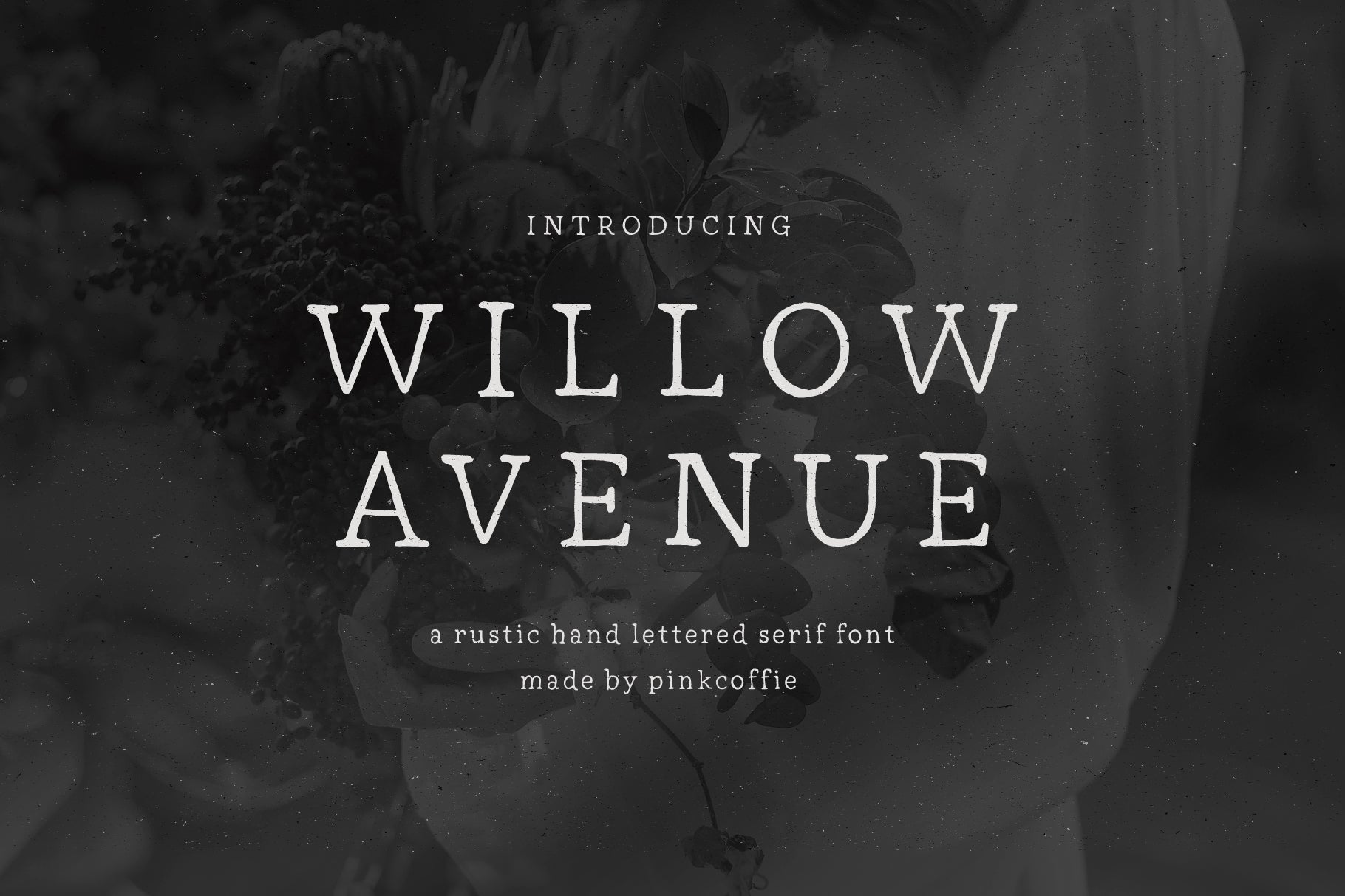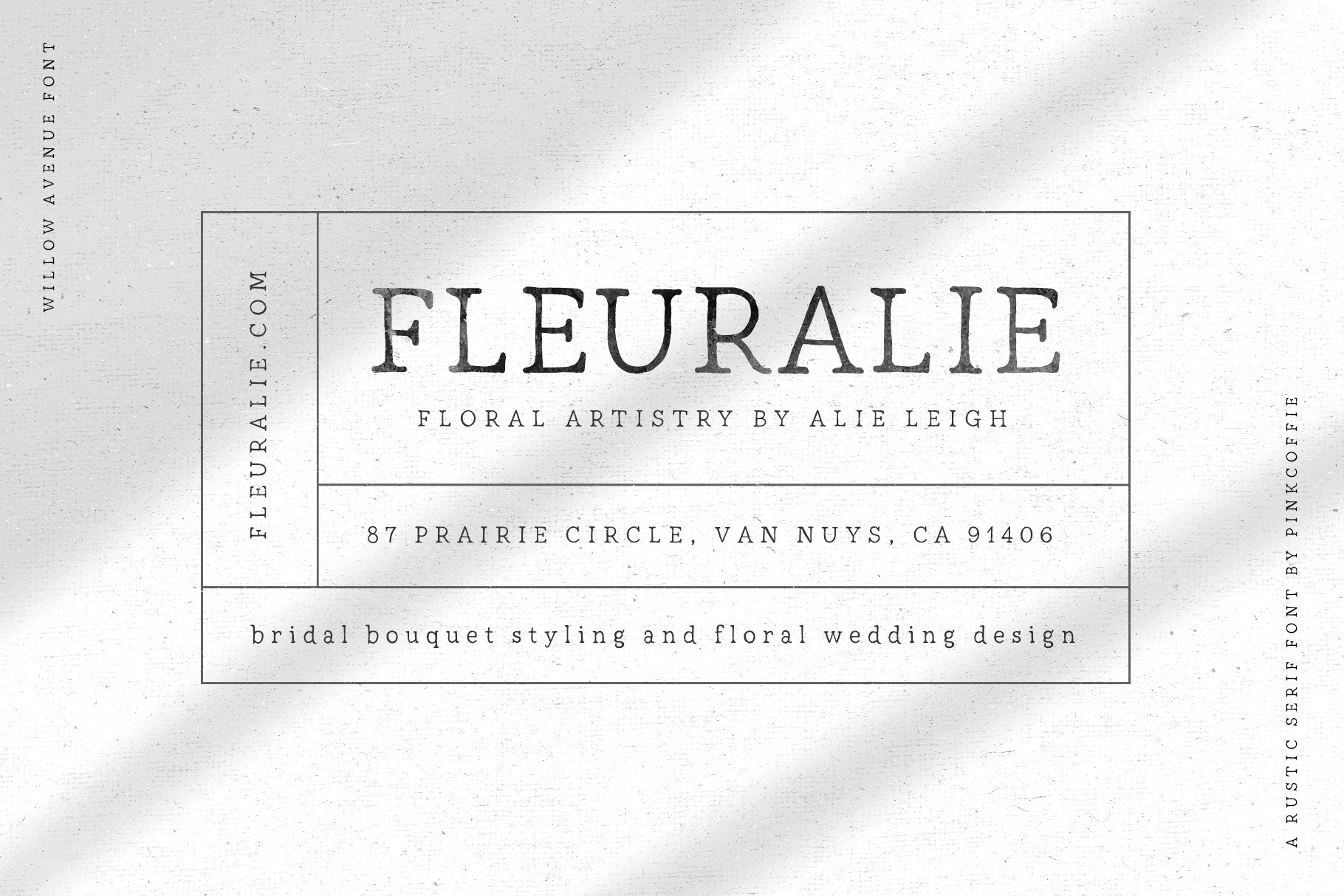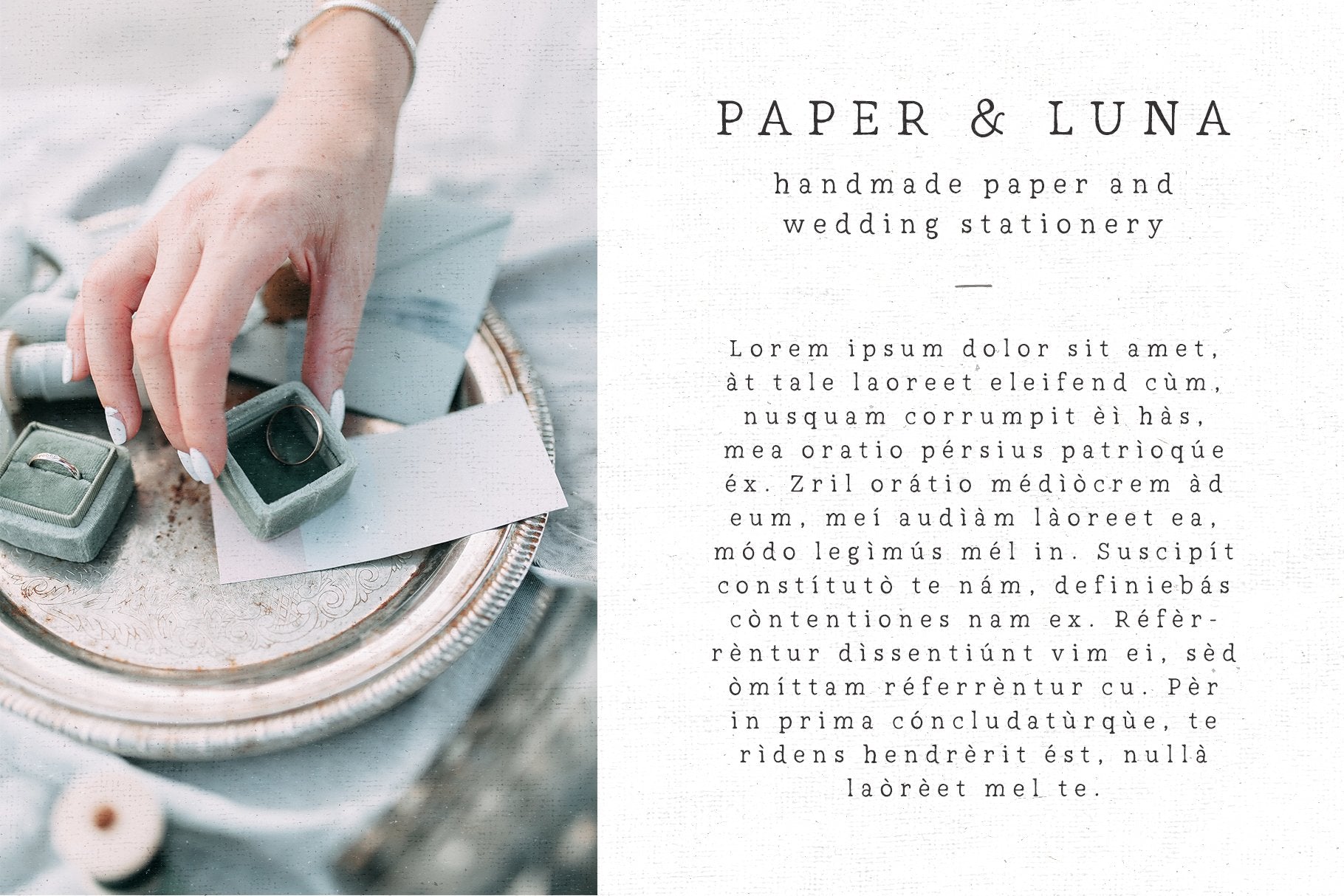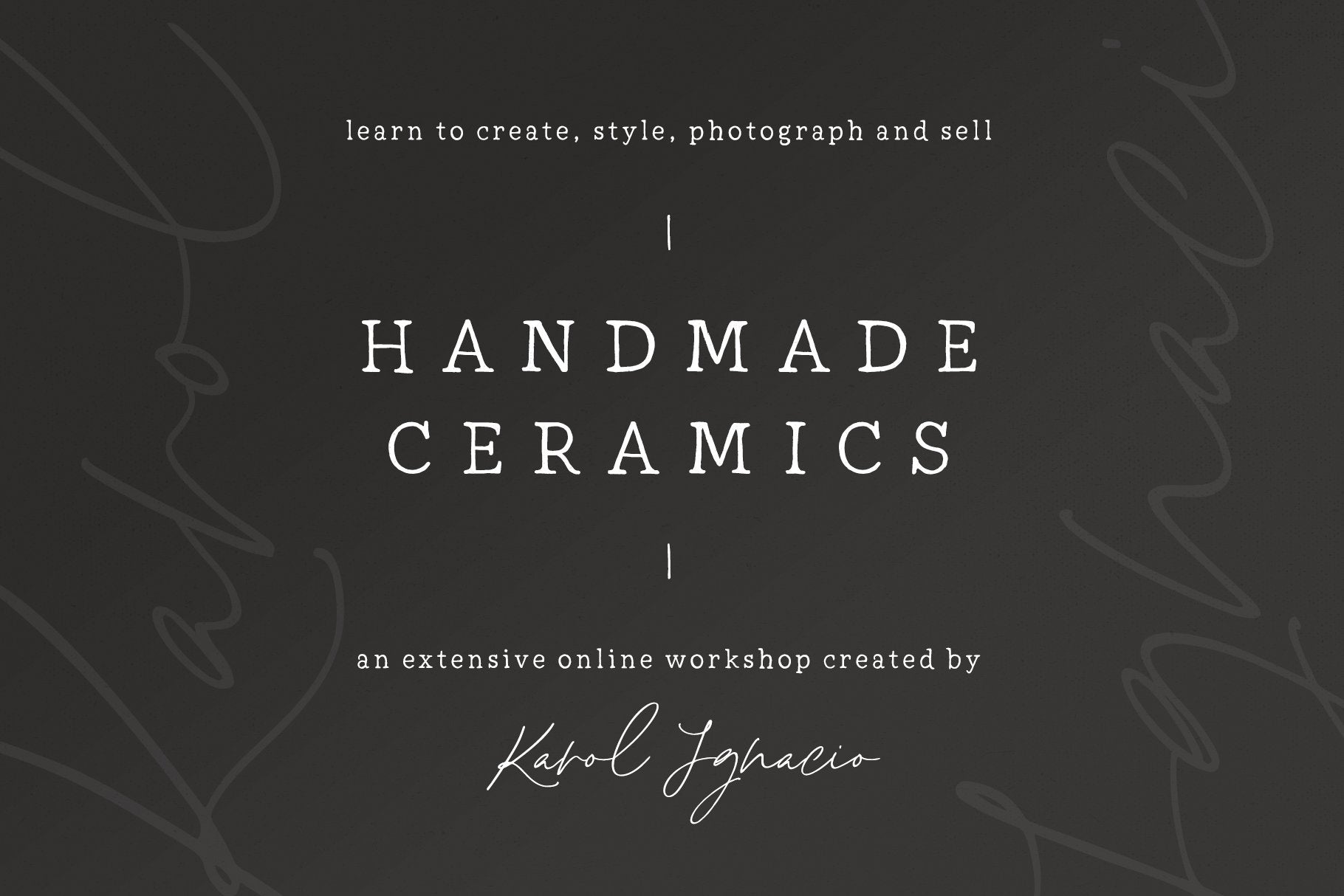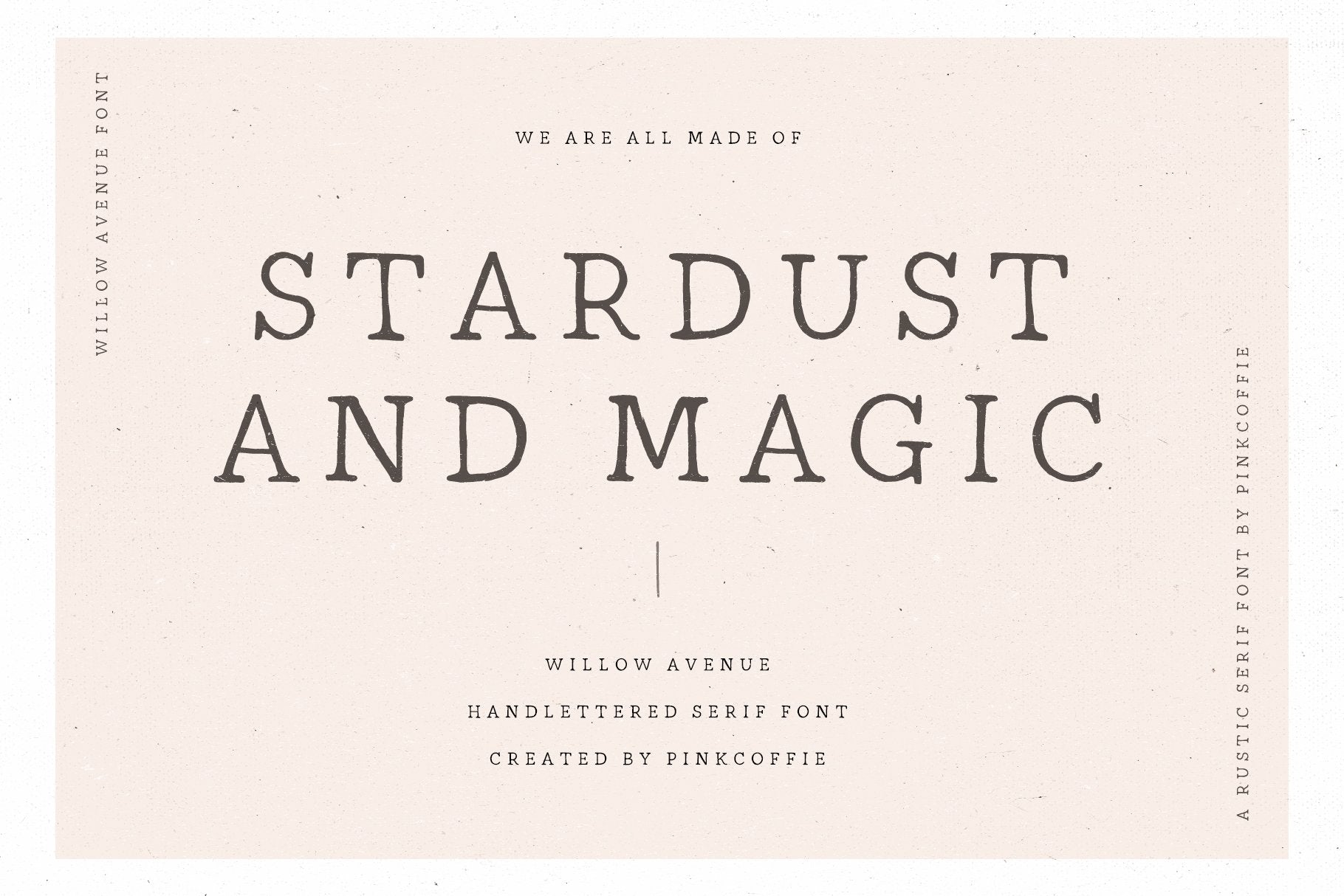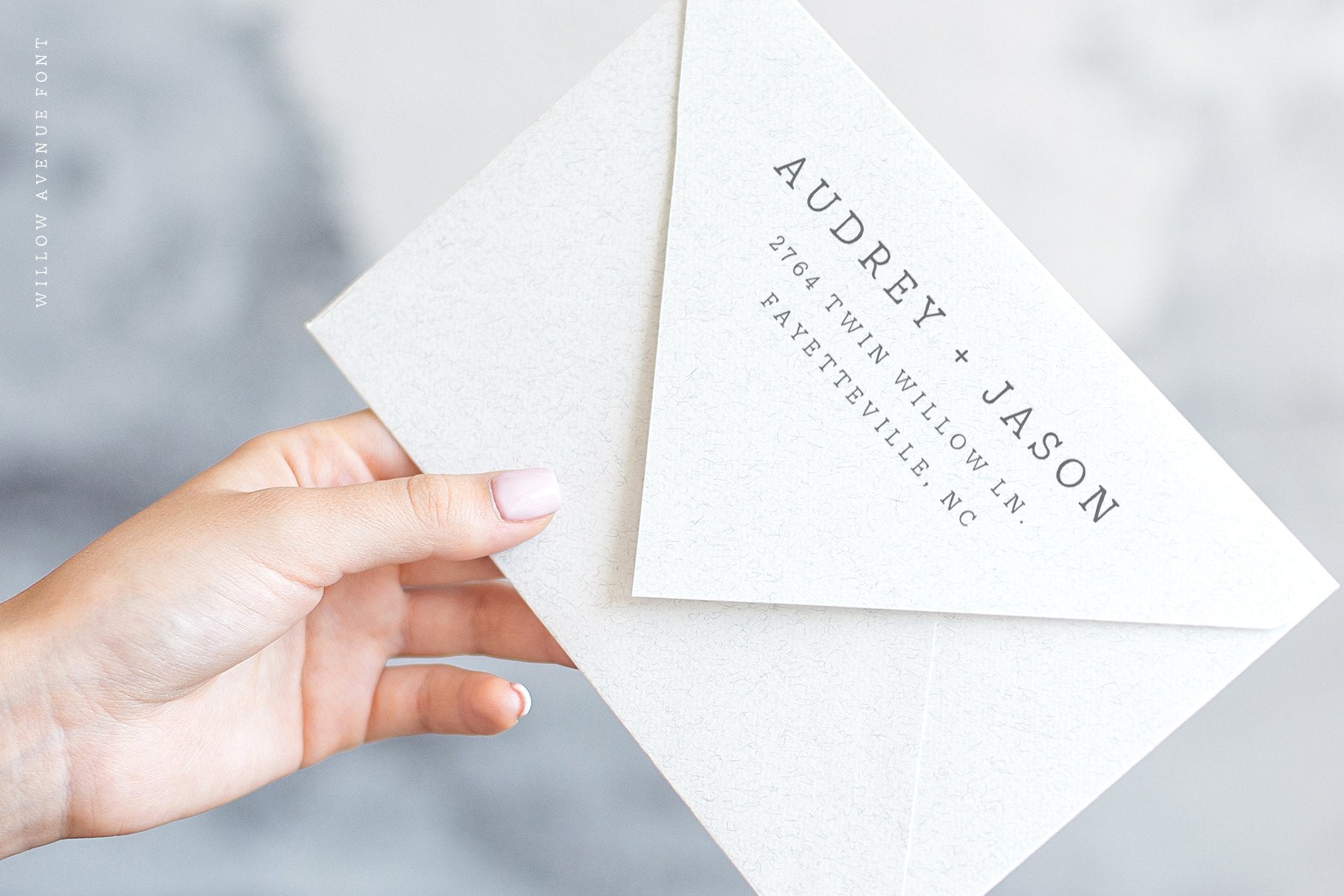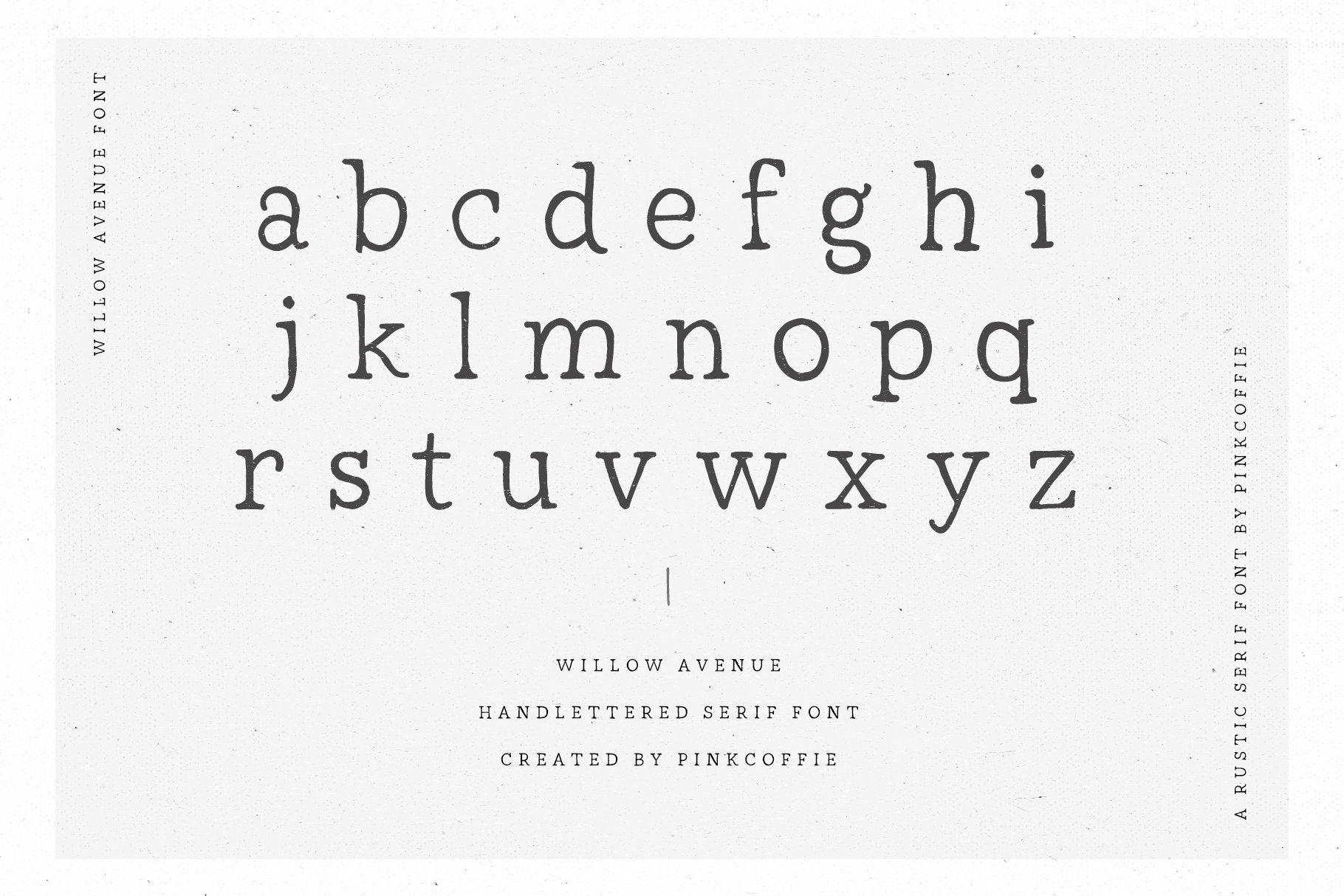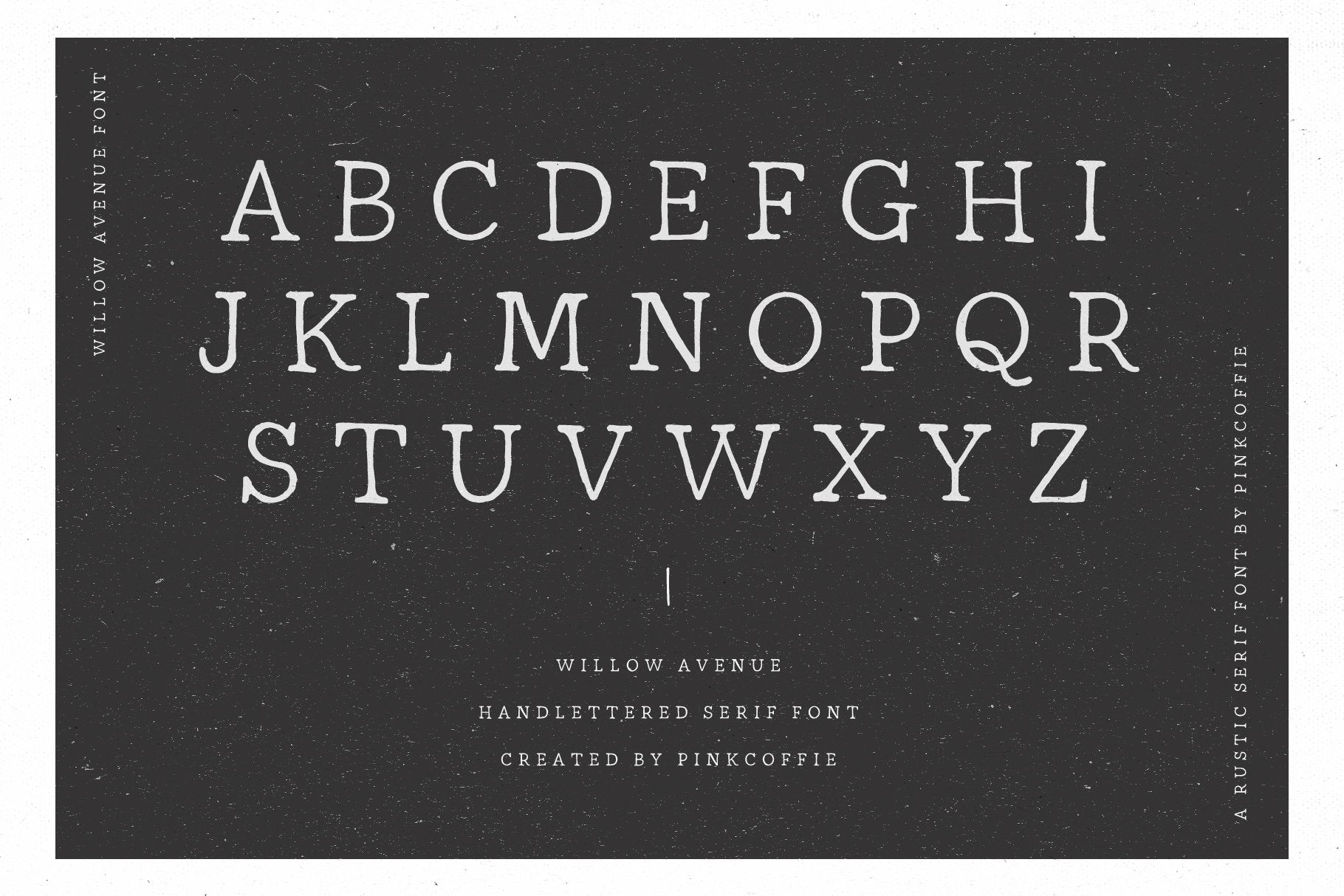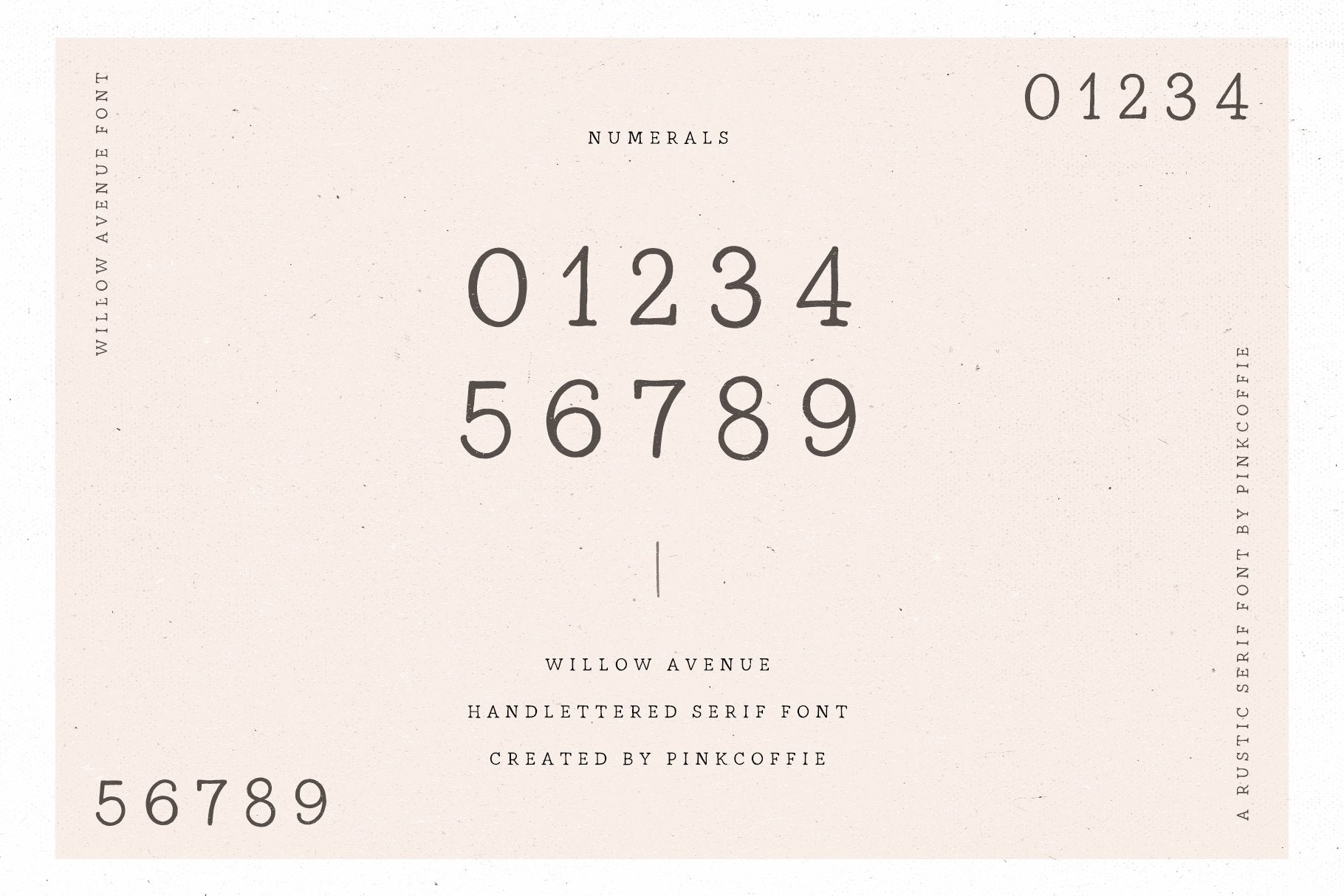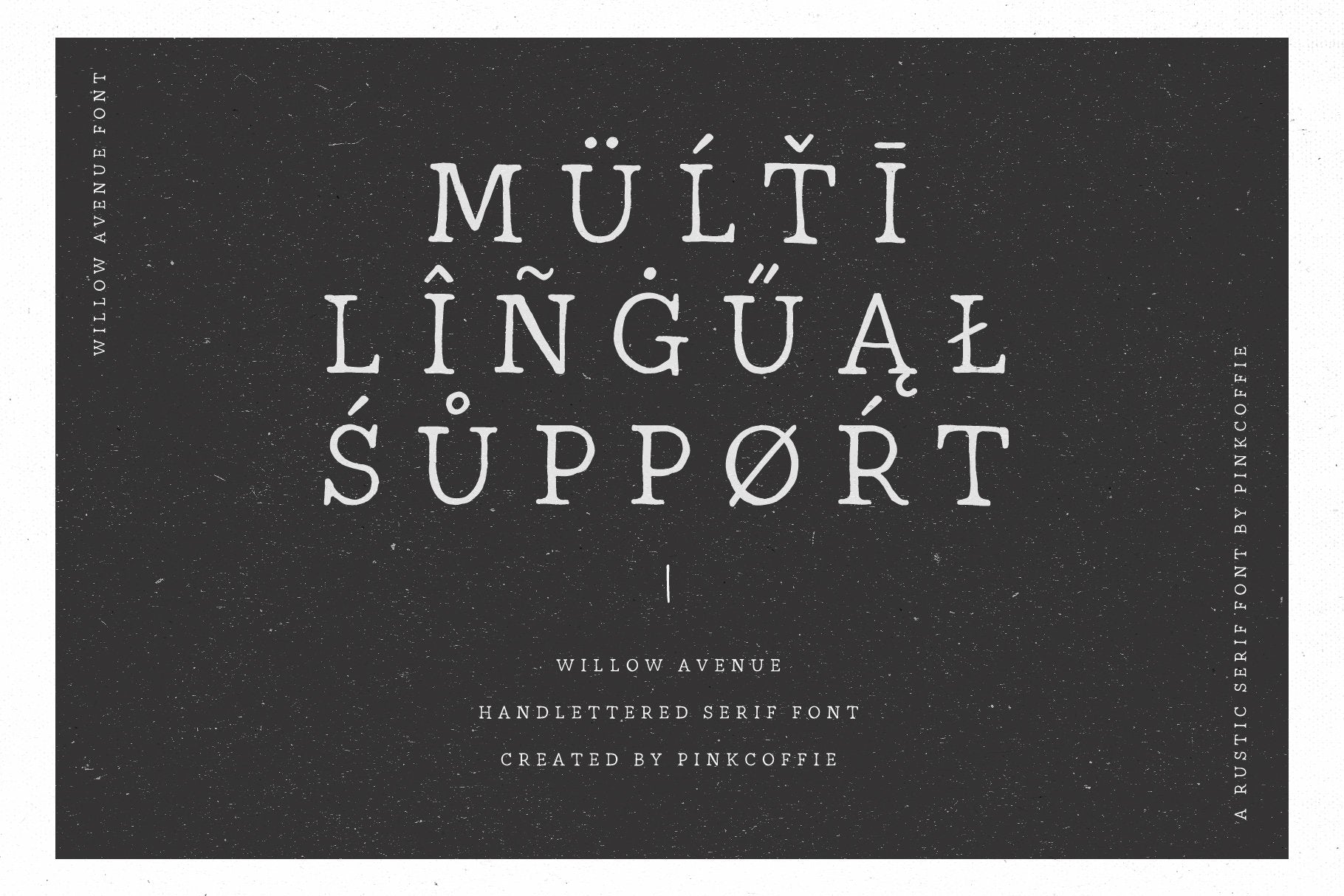
Willow Avenue
Say hello to Willow Avenue! A lovely hand-lettered rustic serif font inspired by beautiful handmade ceramics and rustic stationery.
Willow Avenue includes uppercase, lowercase, numerals, punctuation, and multilingual support.
Multilingual Support:
The font includes multilingual support and the following multi-lingual characters:
ÀÁÂÃÄÅĂĄÆĆČÇĎĐÈÉÊĚËĘÌÍÎÏĹĽŁŃŇÑÒÓÔÕÖŐØŔŘŚŠŞŤÙÚÛÜŰŮÝŸŹŻŽ
ãàáâäåăąæßćčçďđèéêěëęìíîïľłńňñòóôõöőøŕřśšşťùúûüűůýÿźżž